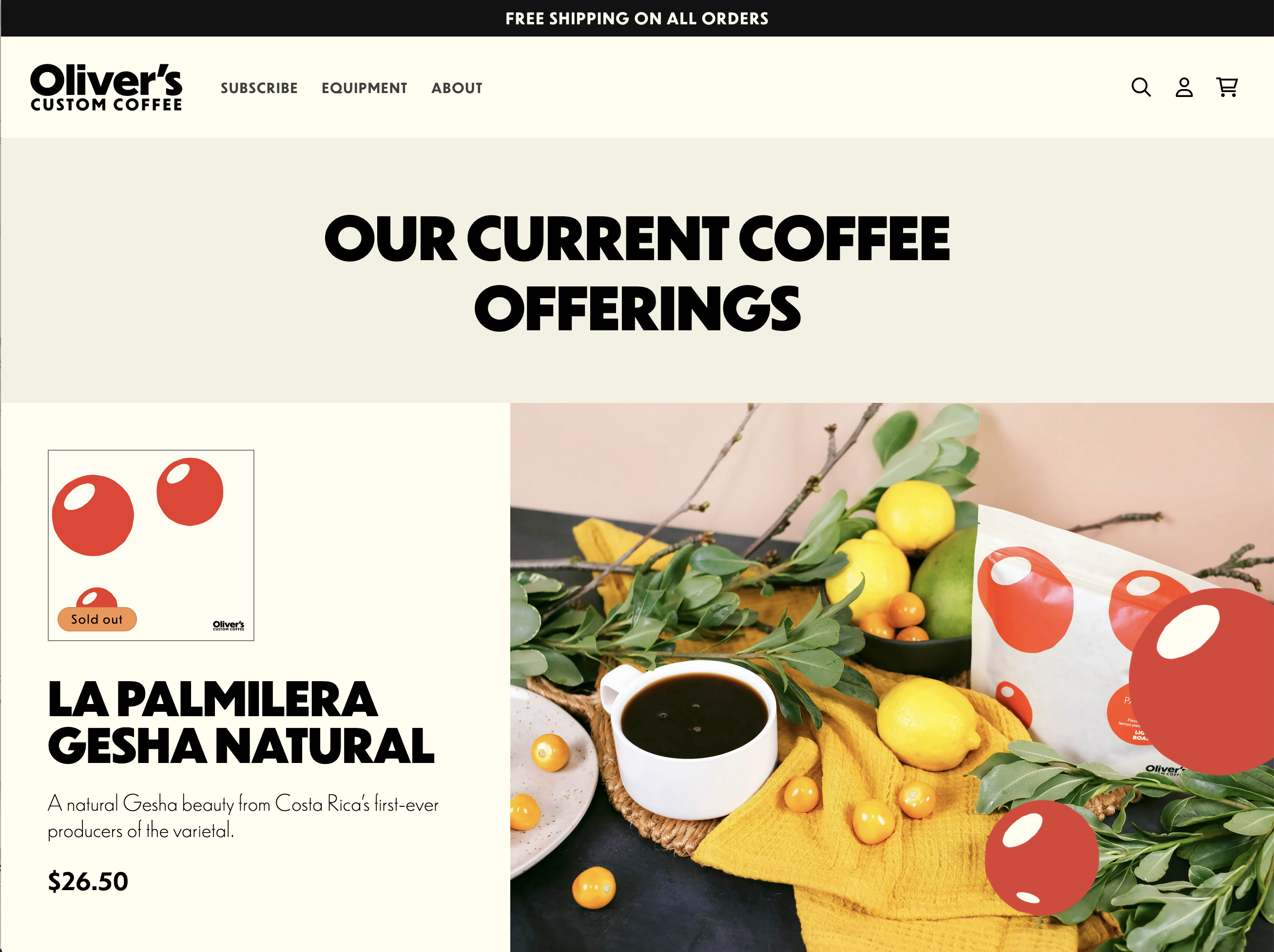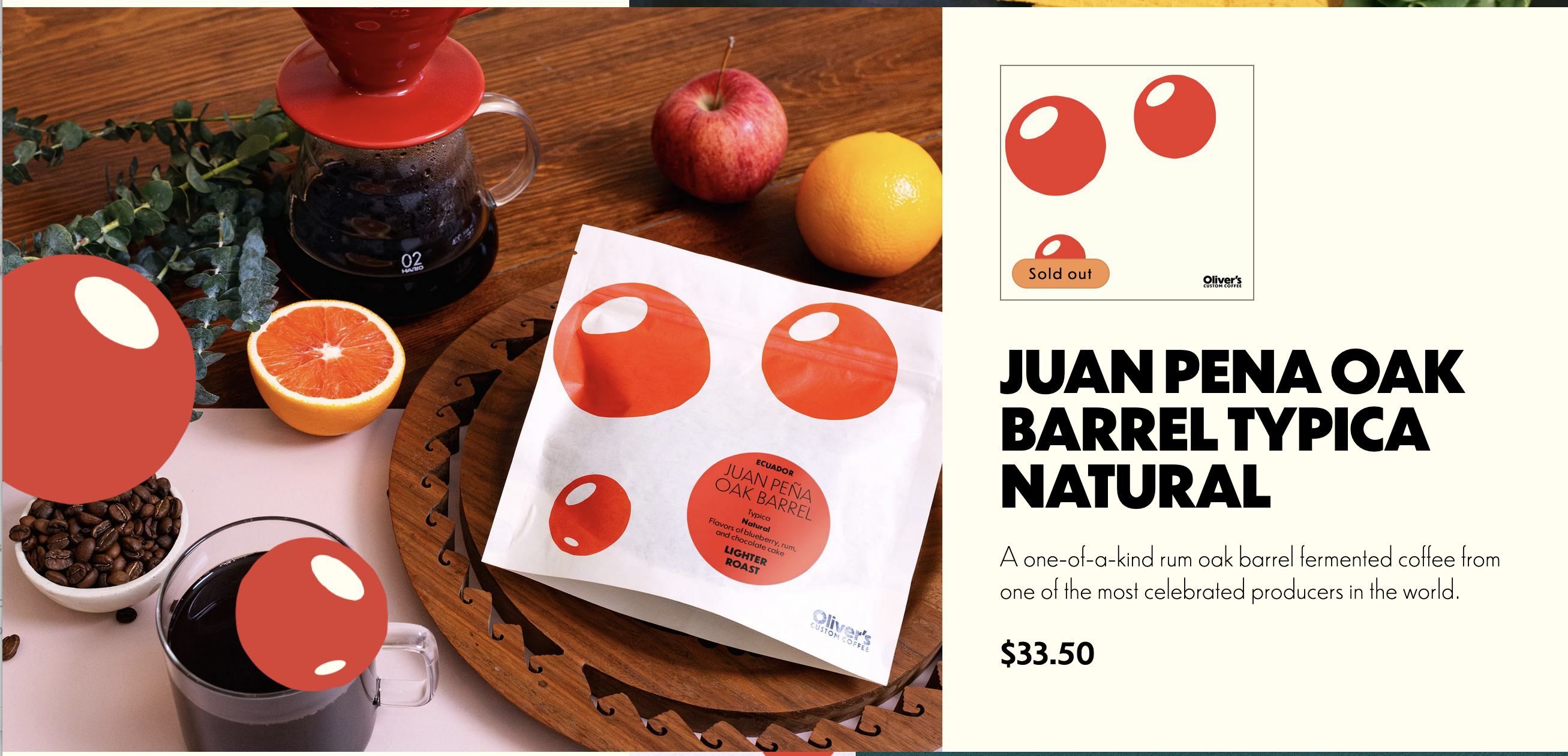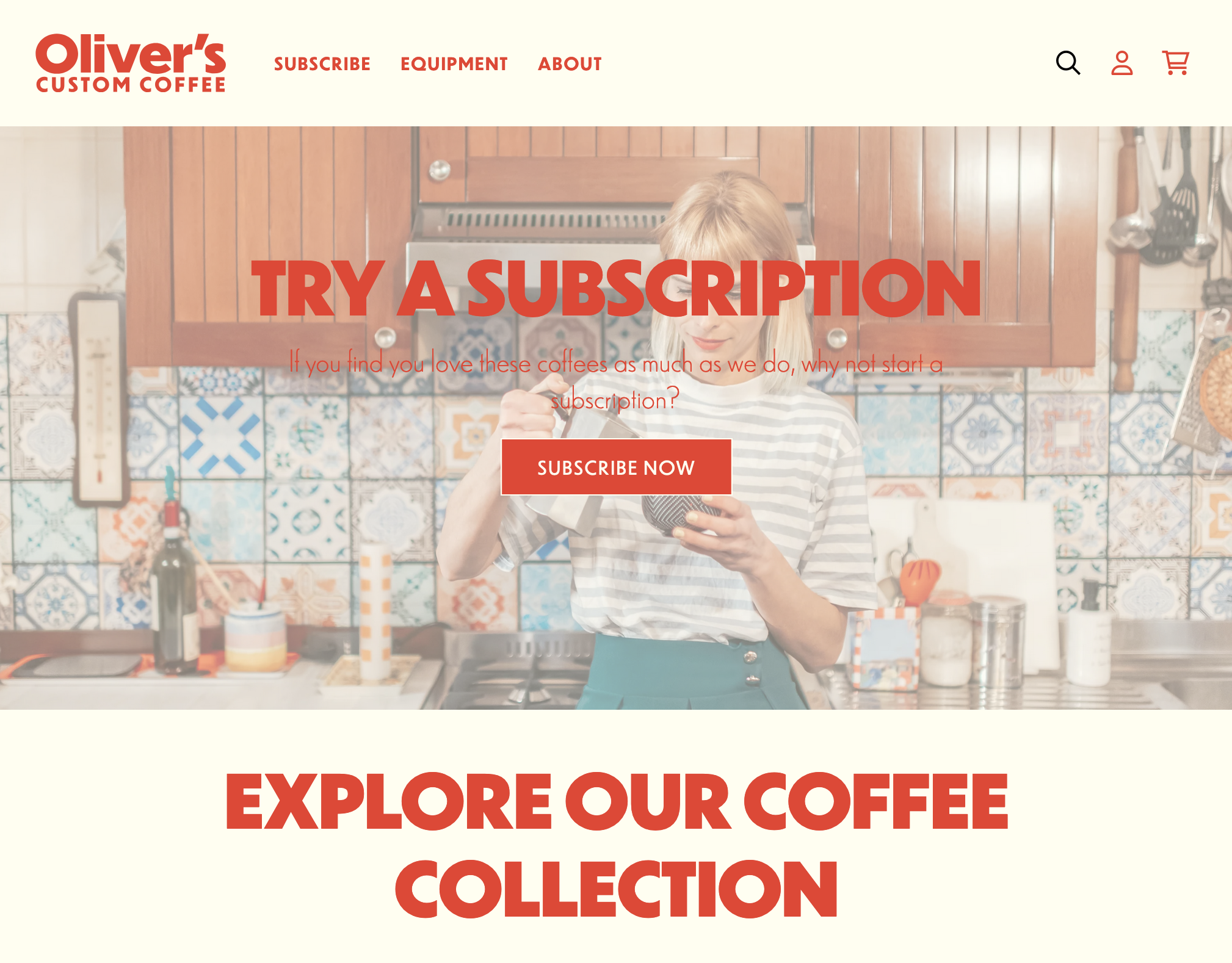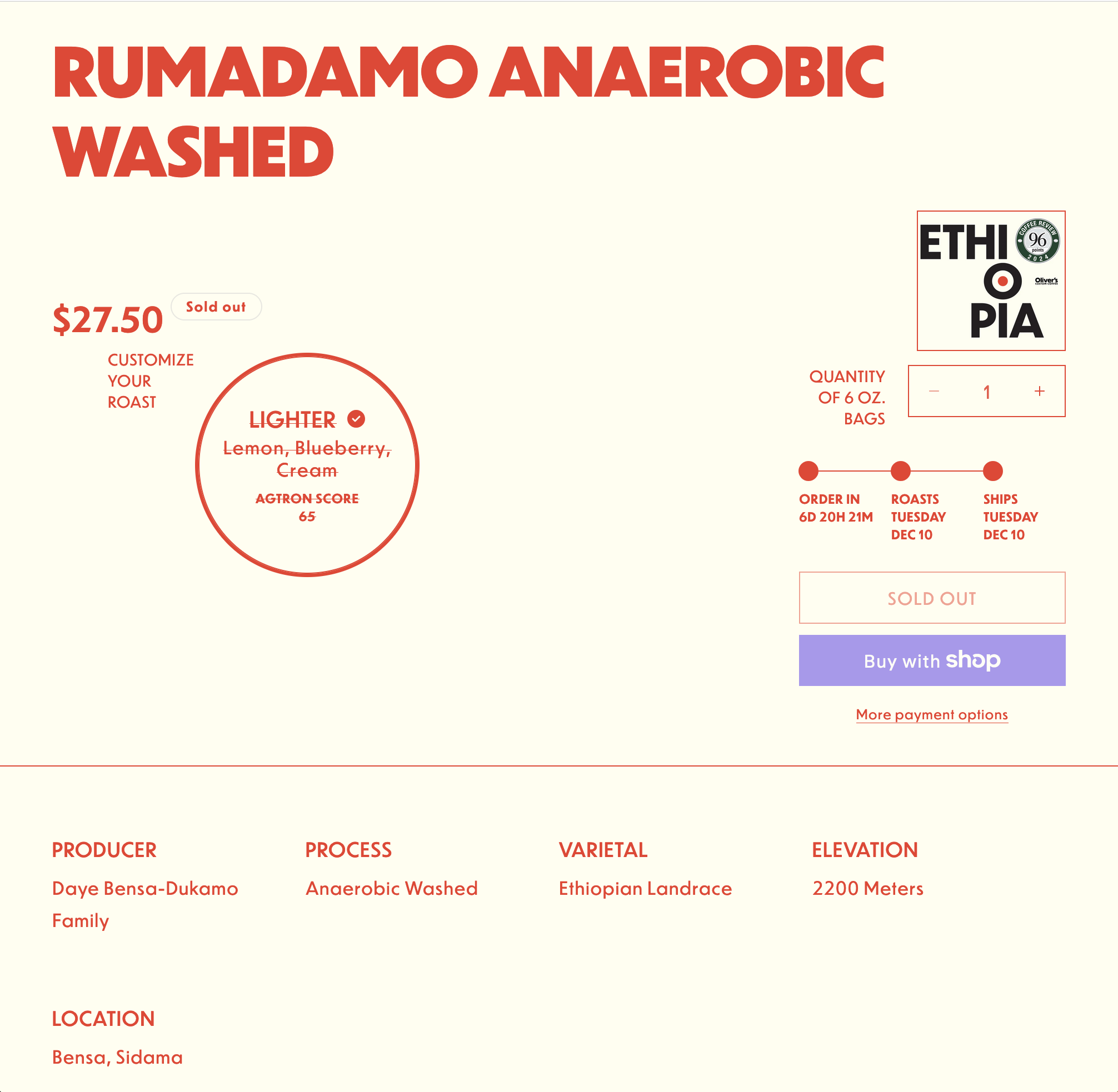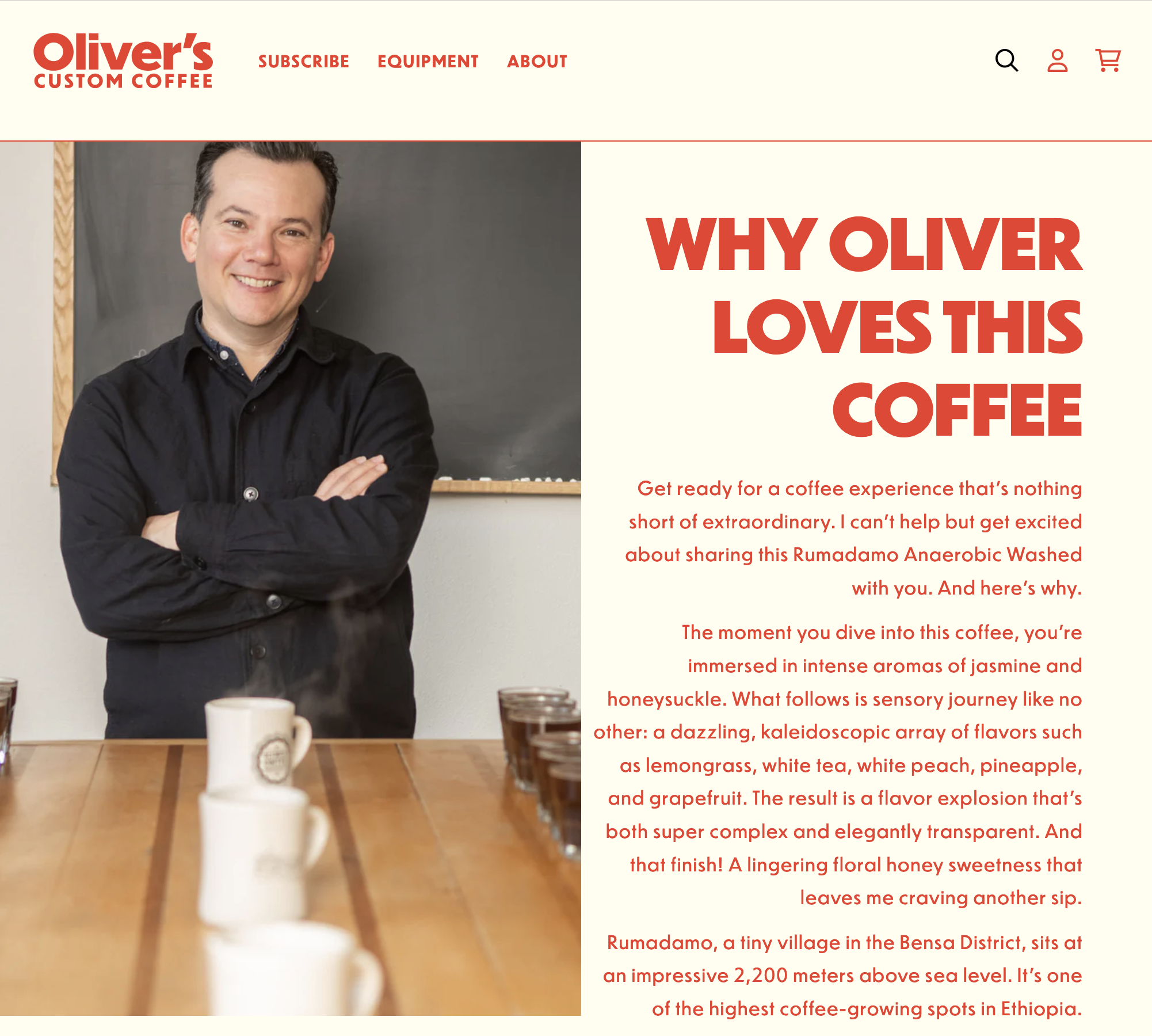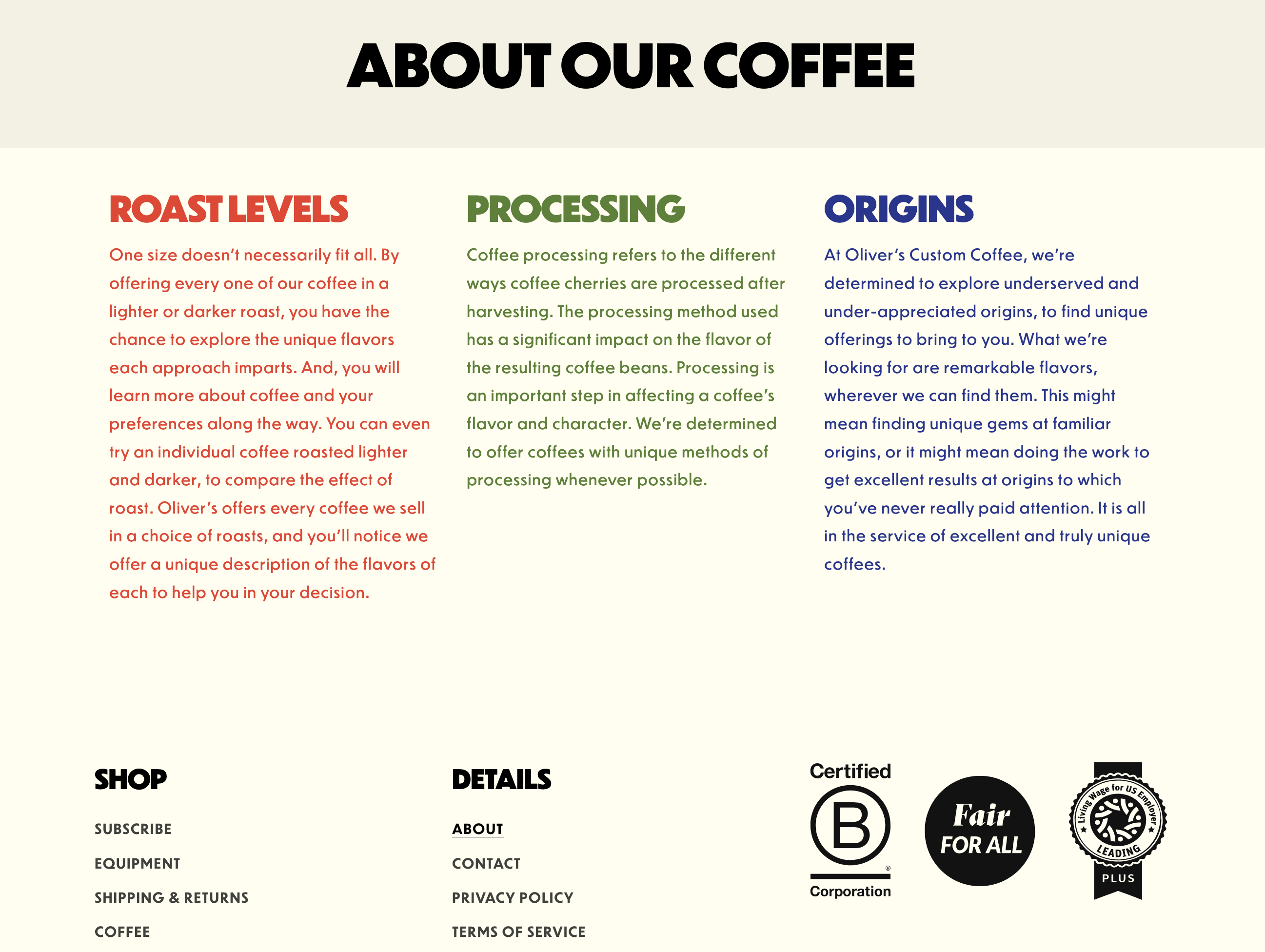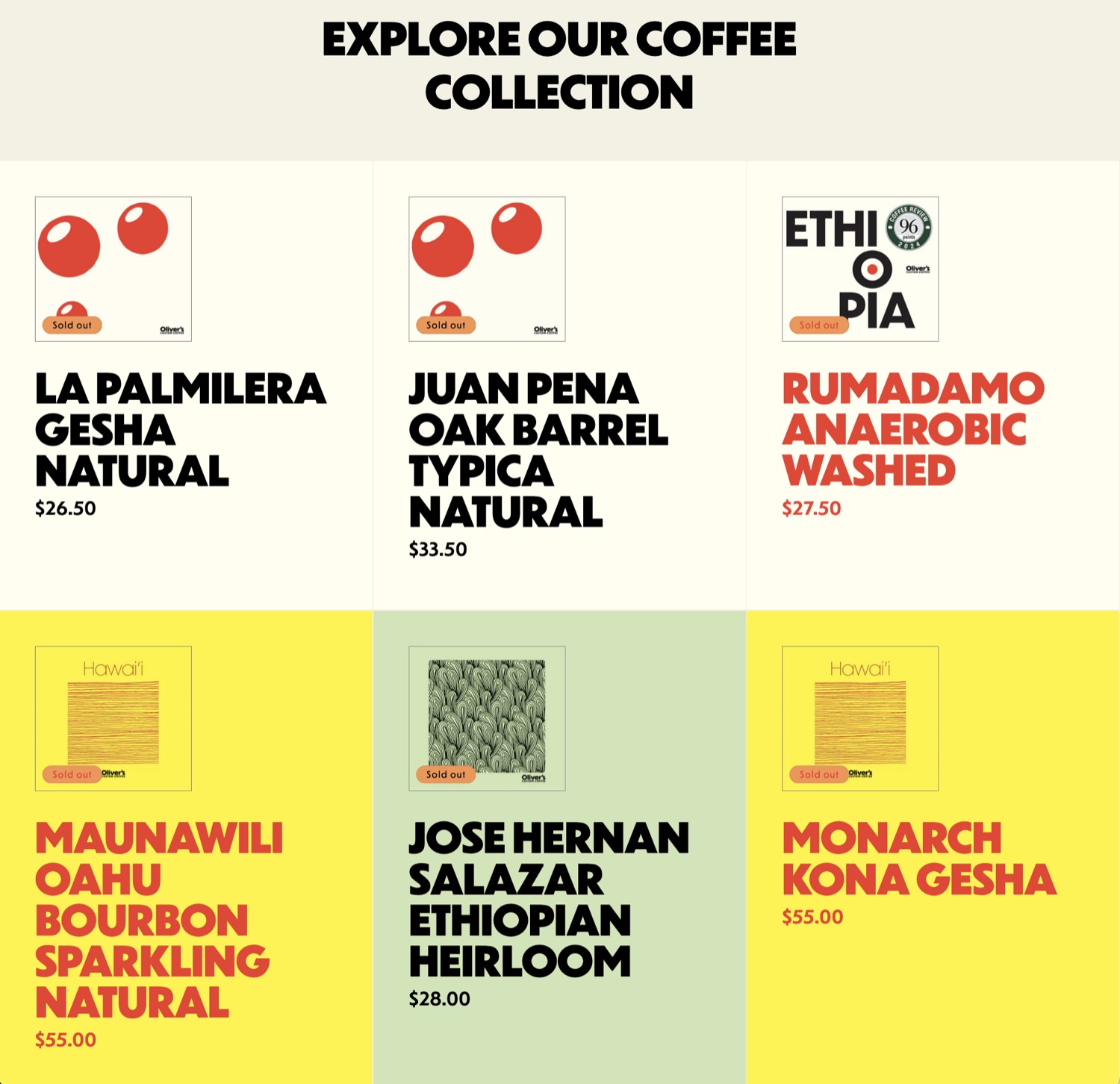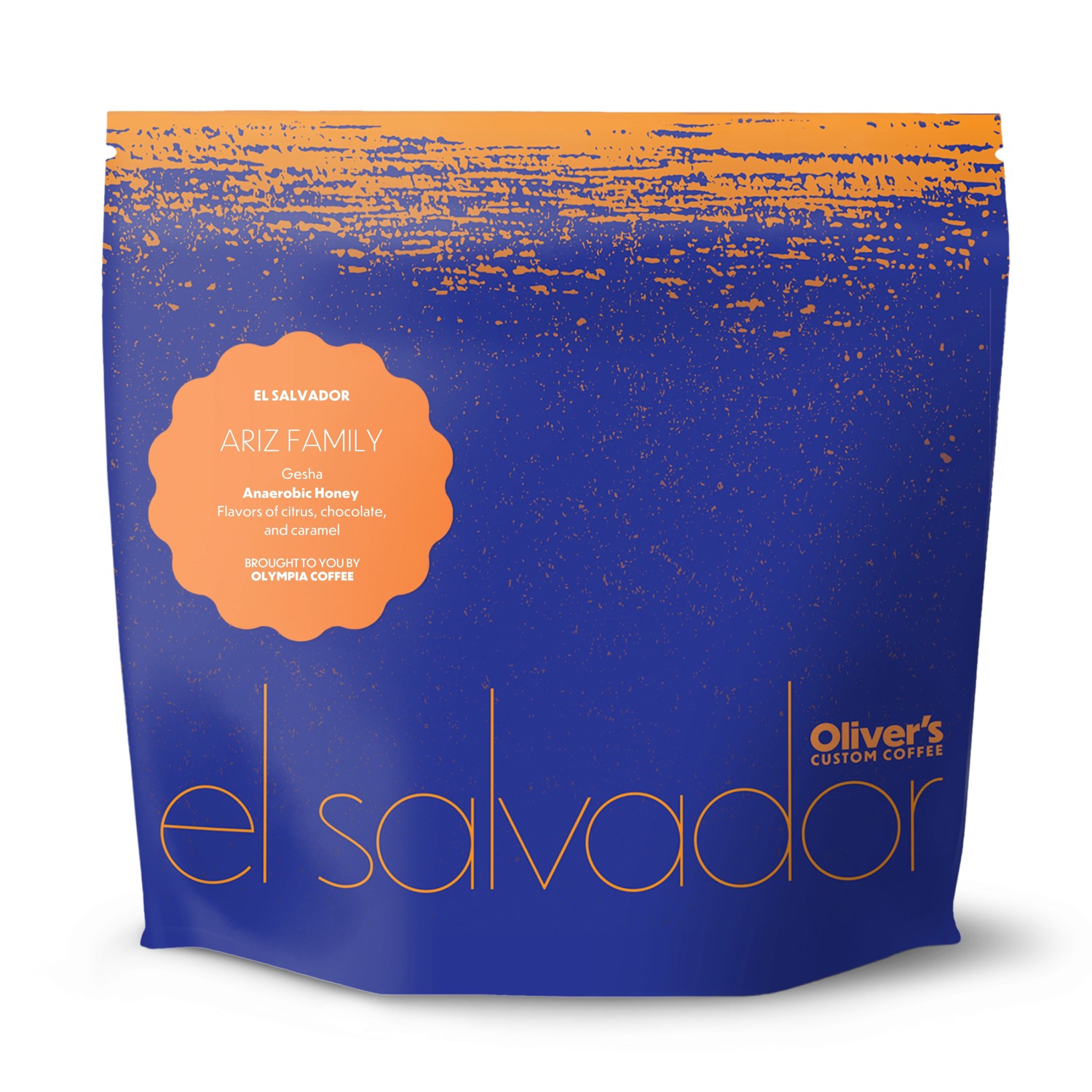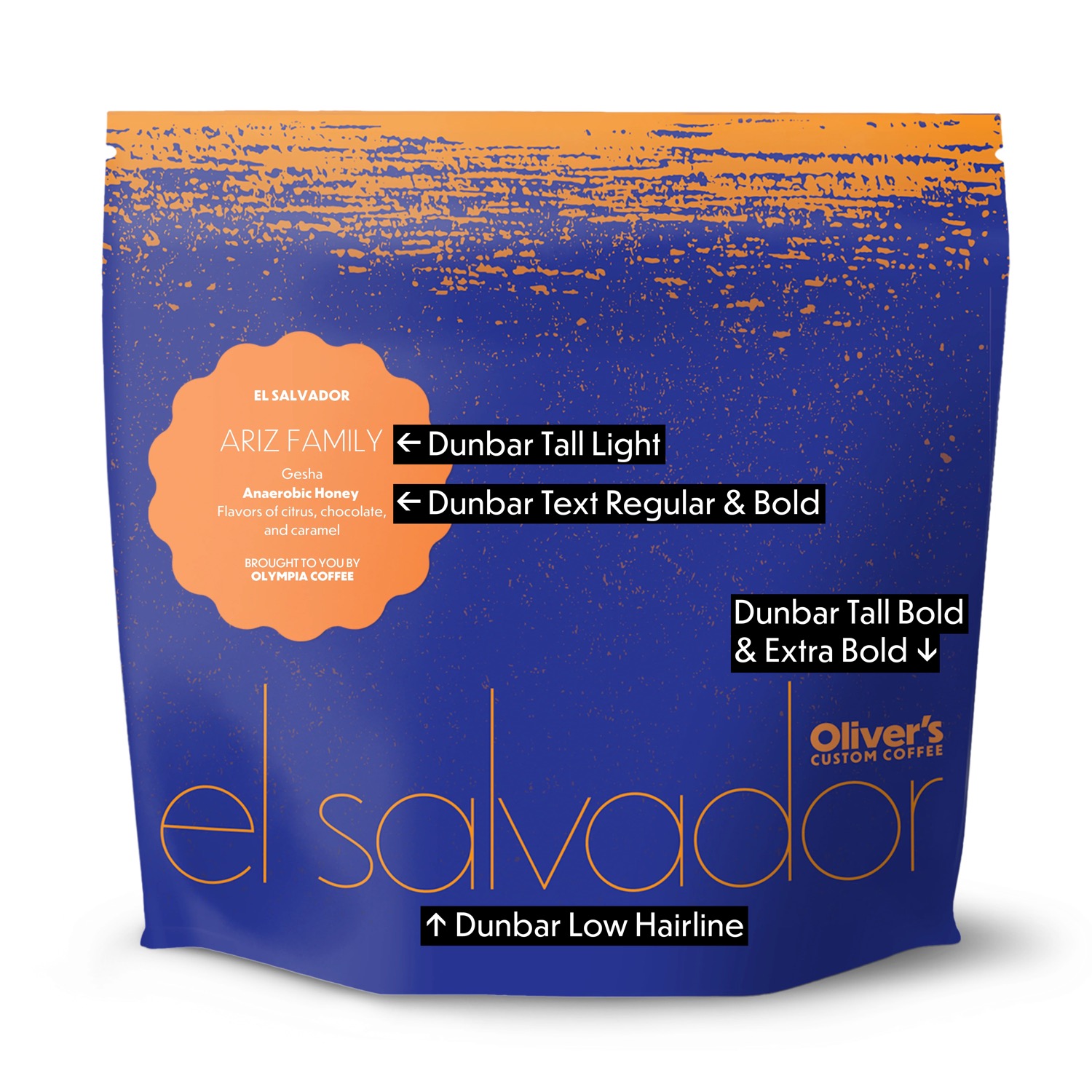
Olivers Custom Coffee
by Needmore Designs Dunbar
Dunbar in use for Oliver’s Custom Coffee, design by Needmore Designs.
A wonderful example of how the wide variety of styles of Dunbar can be used in a cohesive system.
Notice the alternate single-story /a used in the Hawaiʻi coffee series packaging. And the expert use of the variety of weights on the circular labels. I also love the large, bold, all caps staggered type treatment for the ETHIOPA Keramo Anaerobic Natural for a pitch-perfect mid-century design aesthetic.